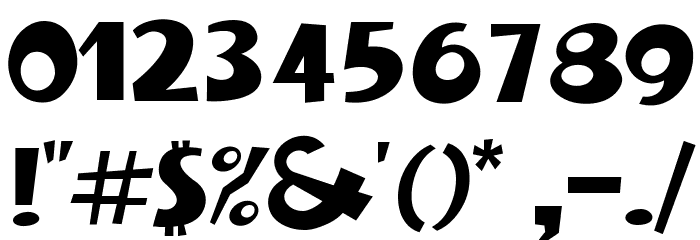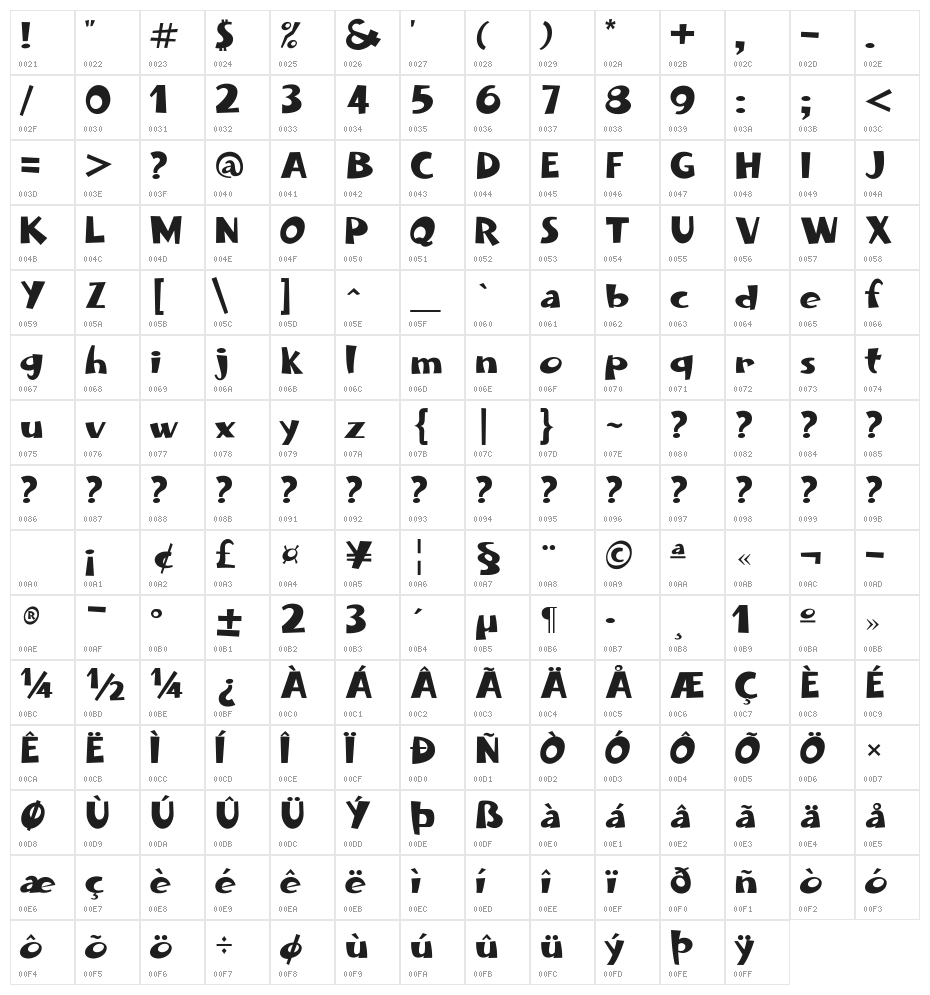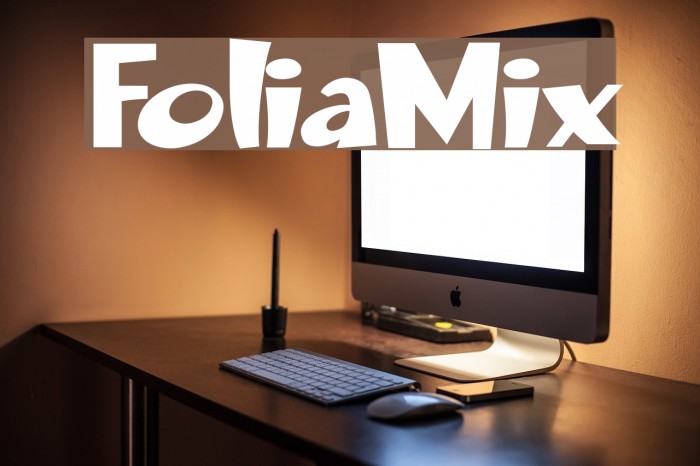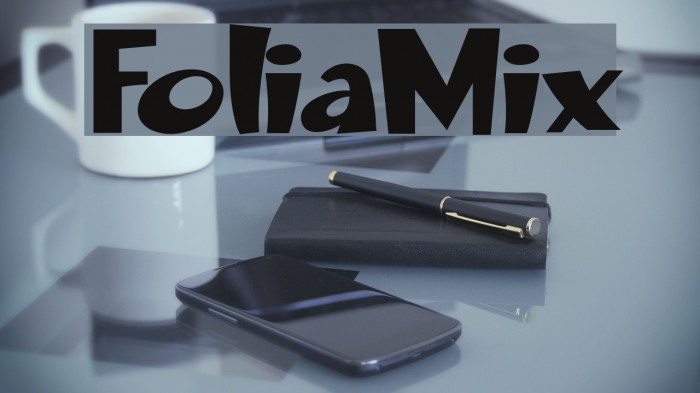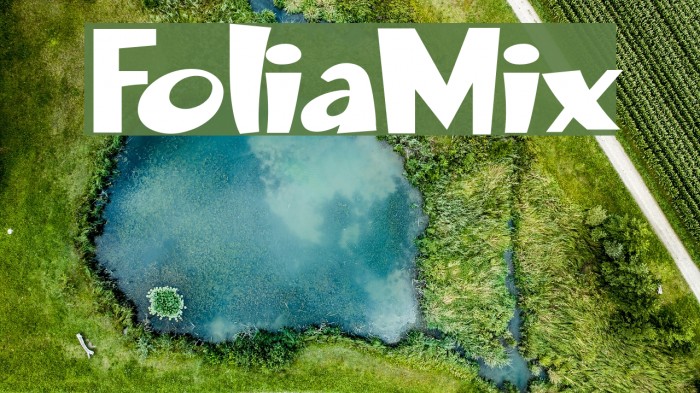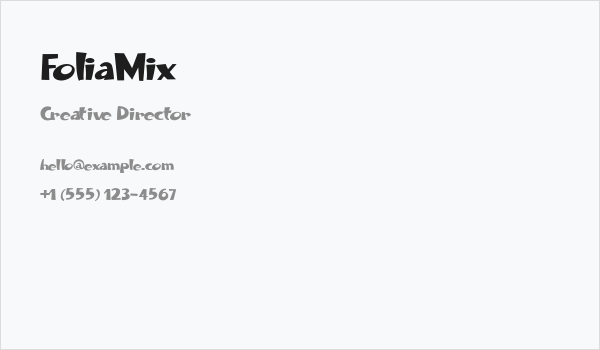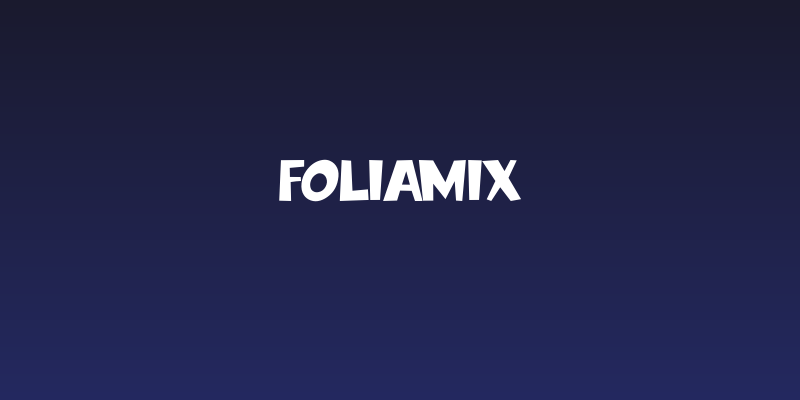
FoliaMix Font
FoliaMix Description
This font features a bold and playful design with exaggerated curves and a whimsical flair. The uppercase letters are robust and dynamic, while the lowercase letters maintain a quirky and informal style. The numbers are bold and consistent with the overall playful theme. Special characters are creatively designed, adding to the font's unique personality. The font's thick strokes and high contrast make it stand out, ideal for eye-catching designs.
| Proposed Projects | Perfect for children's books, playful branding, posters, and creative projects that require a fun and engaging typeface. |